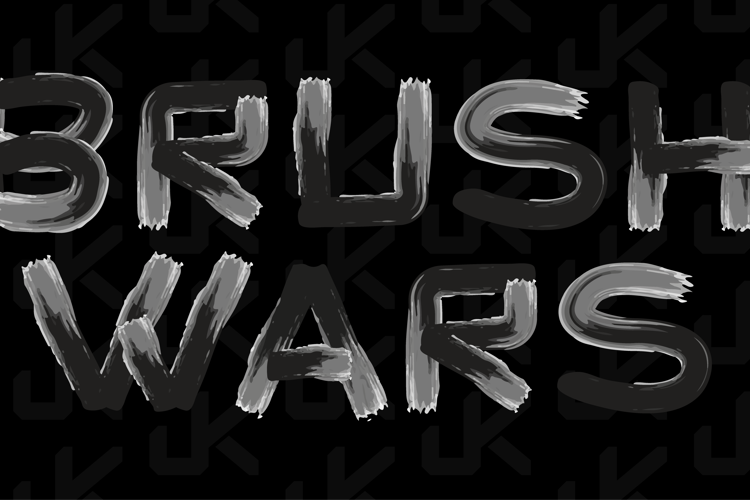
Brush Wars Font
Inspired by the logo of the animated short 'Star Wars Visions' released in 2021 for Disney Plus.
A font made with your design in brush writing style, also worked as a color font. It also consists of just one style, and for that reason it doesn't establish it as a font family.